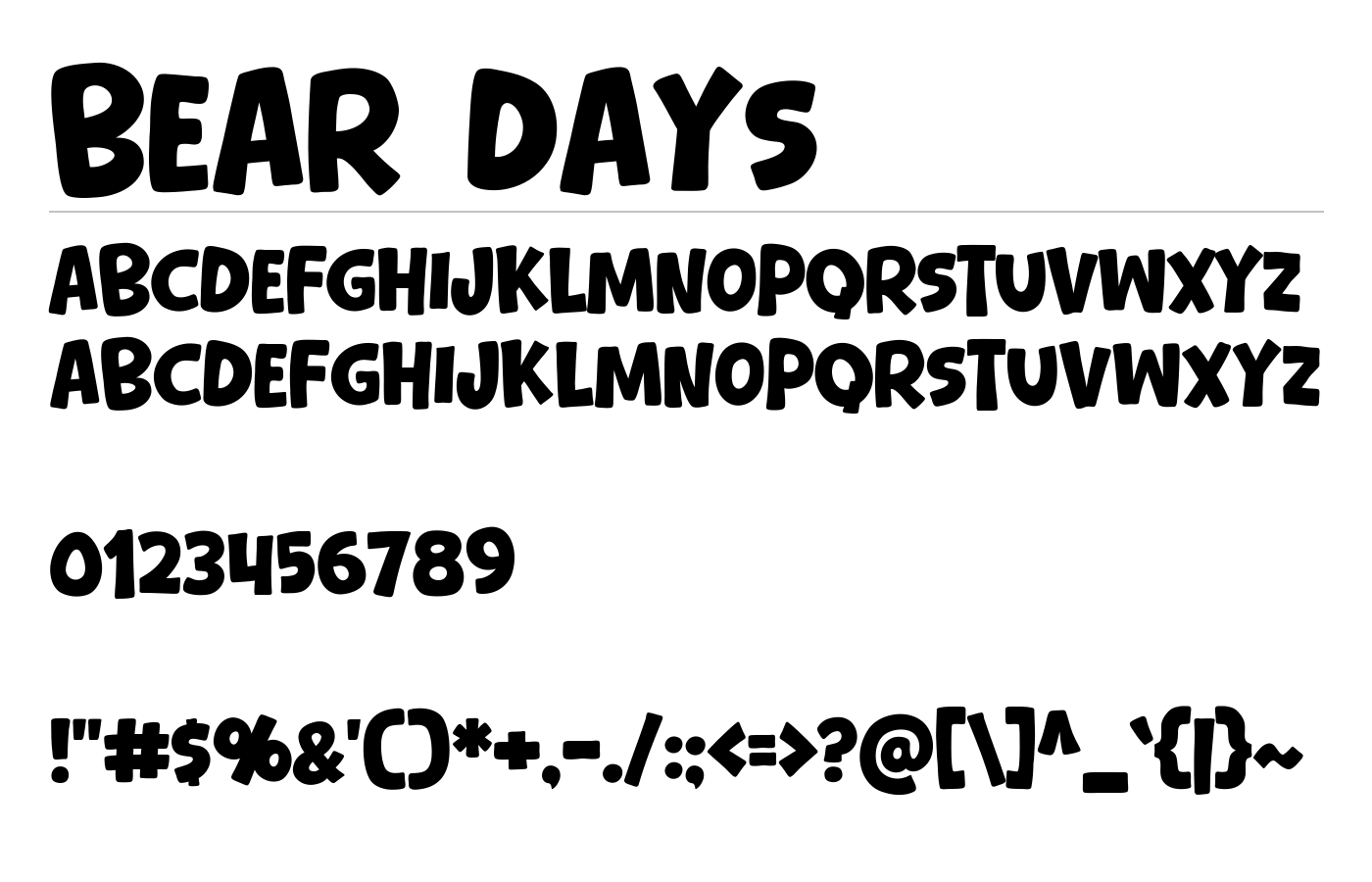
Bear Days is a playful, chunky sans serif font with a relaxed, hand-drawn feel, featuring bold, rounded letterforms and a slightly irregular style that adds charm and friendliness. Its casual personality makes it ideal for children’s books, party invitations, logos, and fun packaging, where a warm and approachable look is desired. This font shines in large sizes and headlines, bringing energy and a sense of joy to any design.
Bear Days Font
About Bear Days Font